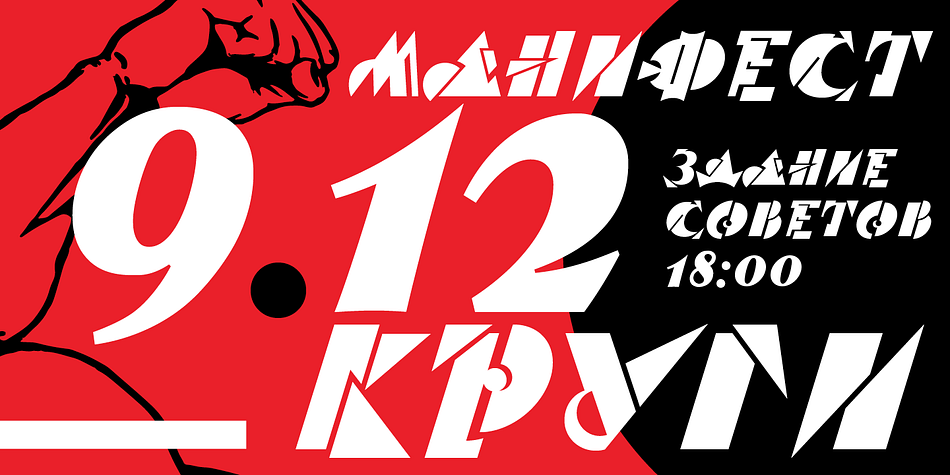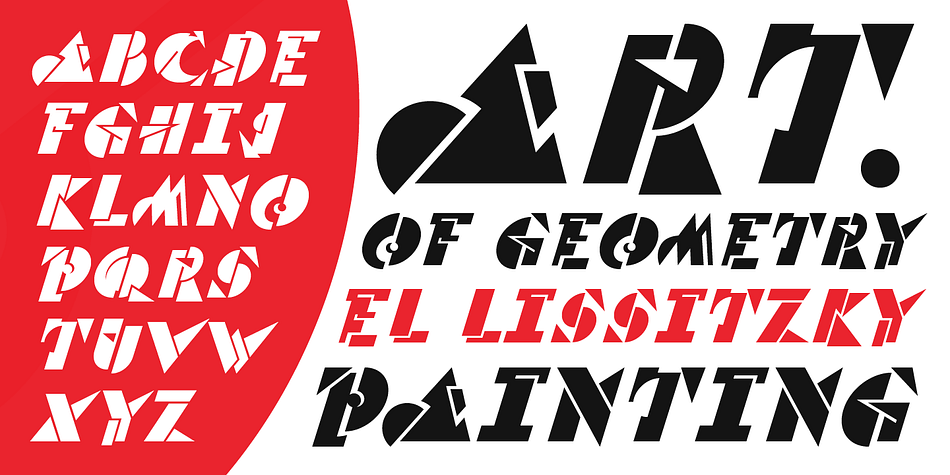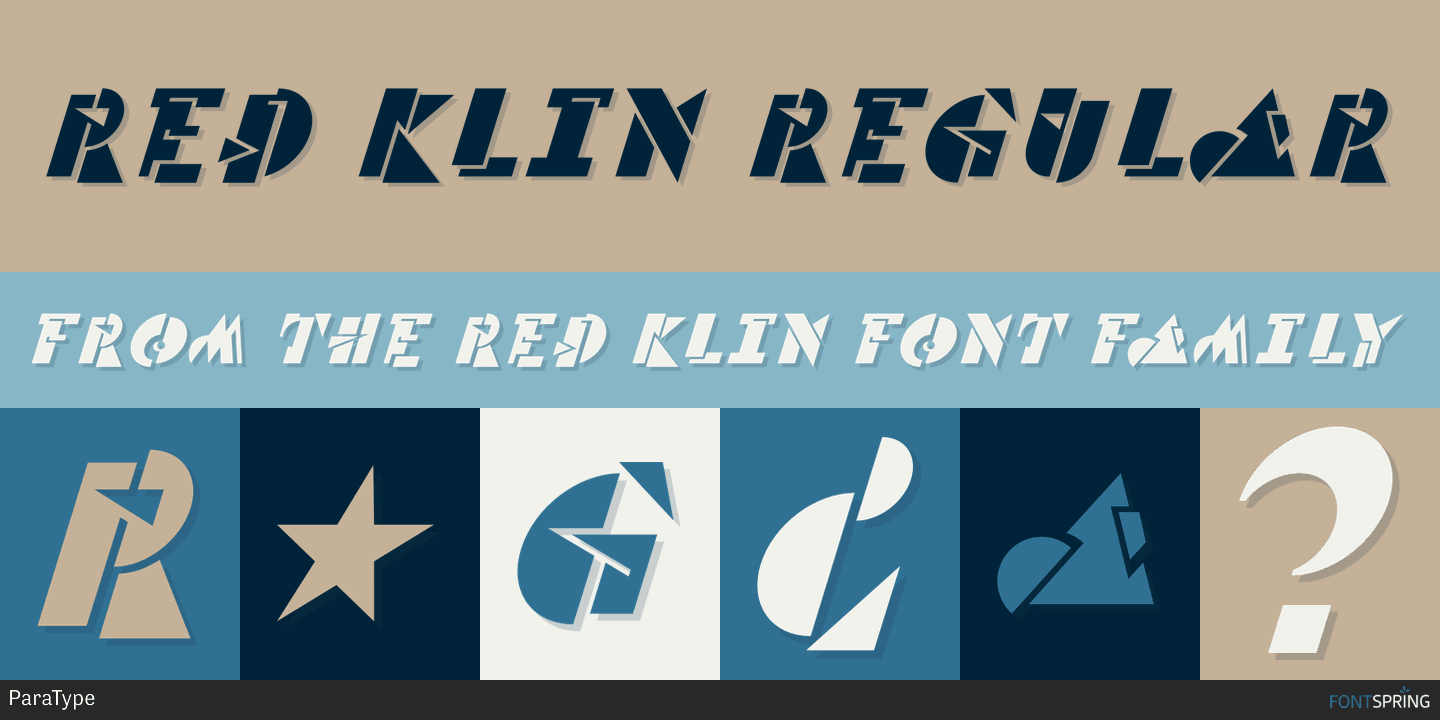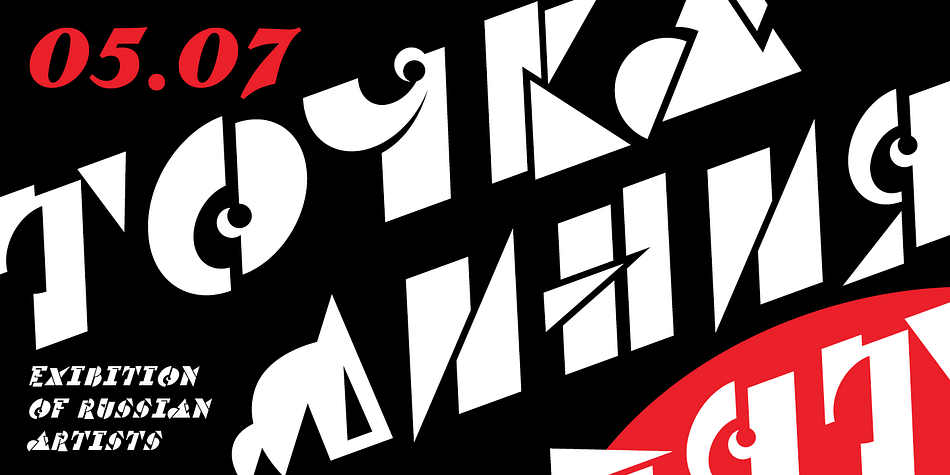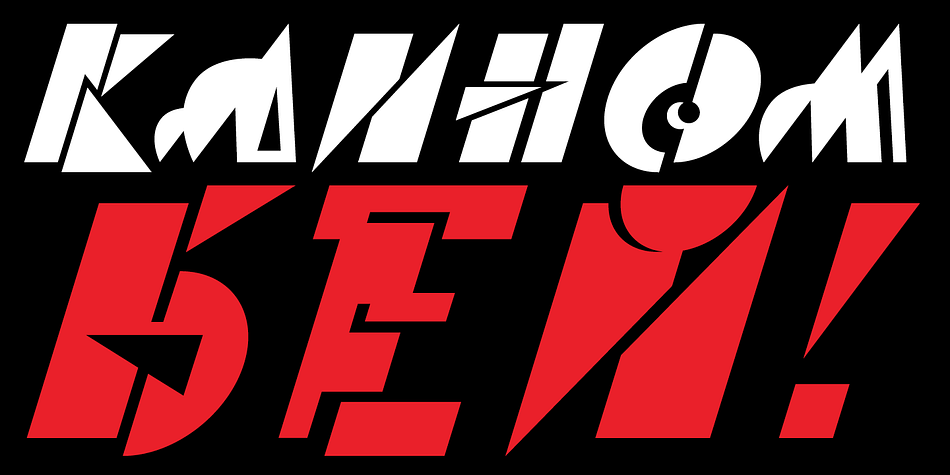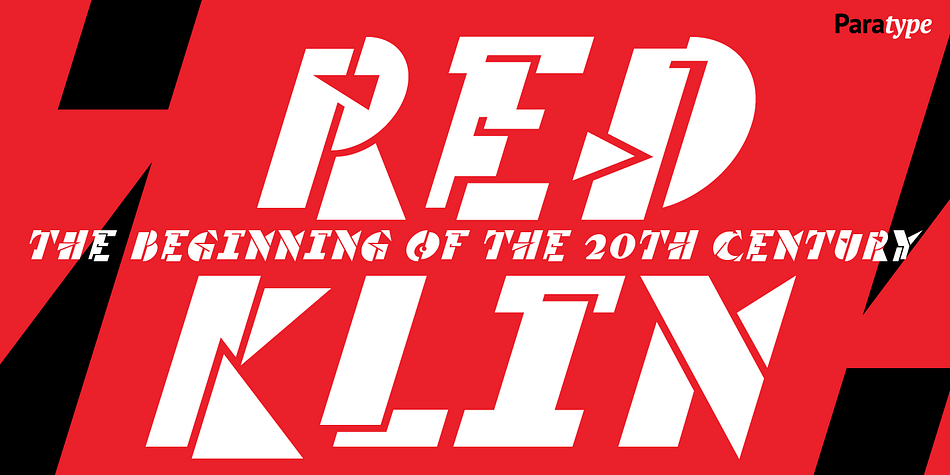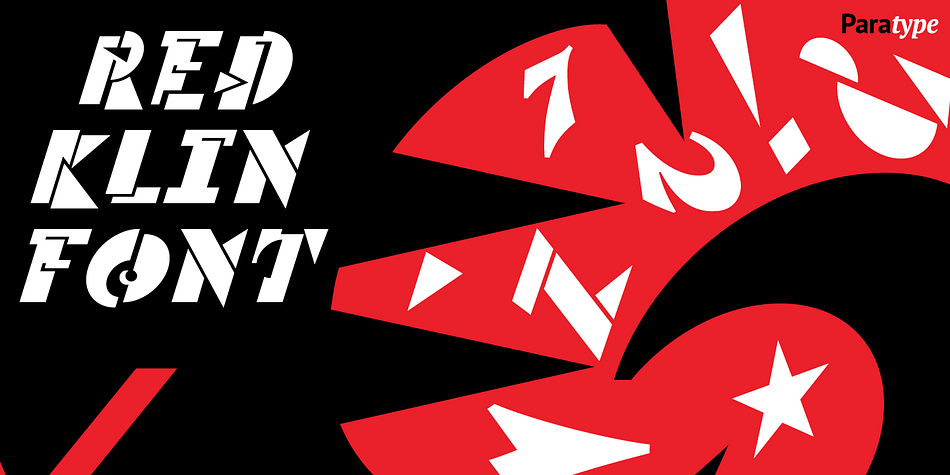
Designed by Gayaneh Bagdasaryan, Red Klin is a novelty font published by ParaType.
A decorative сaps only typeface designed for ParaType in 2004 by Gayaneh Bagdasaryan. Inspired by Russian fine art from the beginning of the 20th century - lettering by Sergey Chekhonin (1878-1936), graphic design by El Lissitzky (1890-1941) and the Suprematism painting. Sketch design of the font (under the name Klin) was awarded a TDC2 2000 diploma. For use in advertising and display typography.